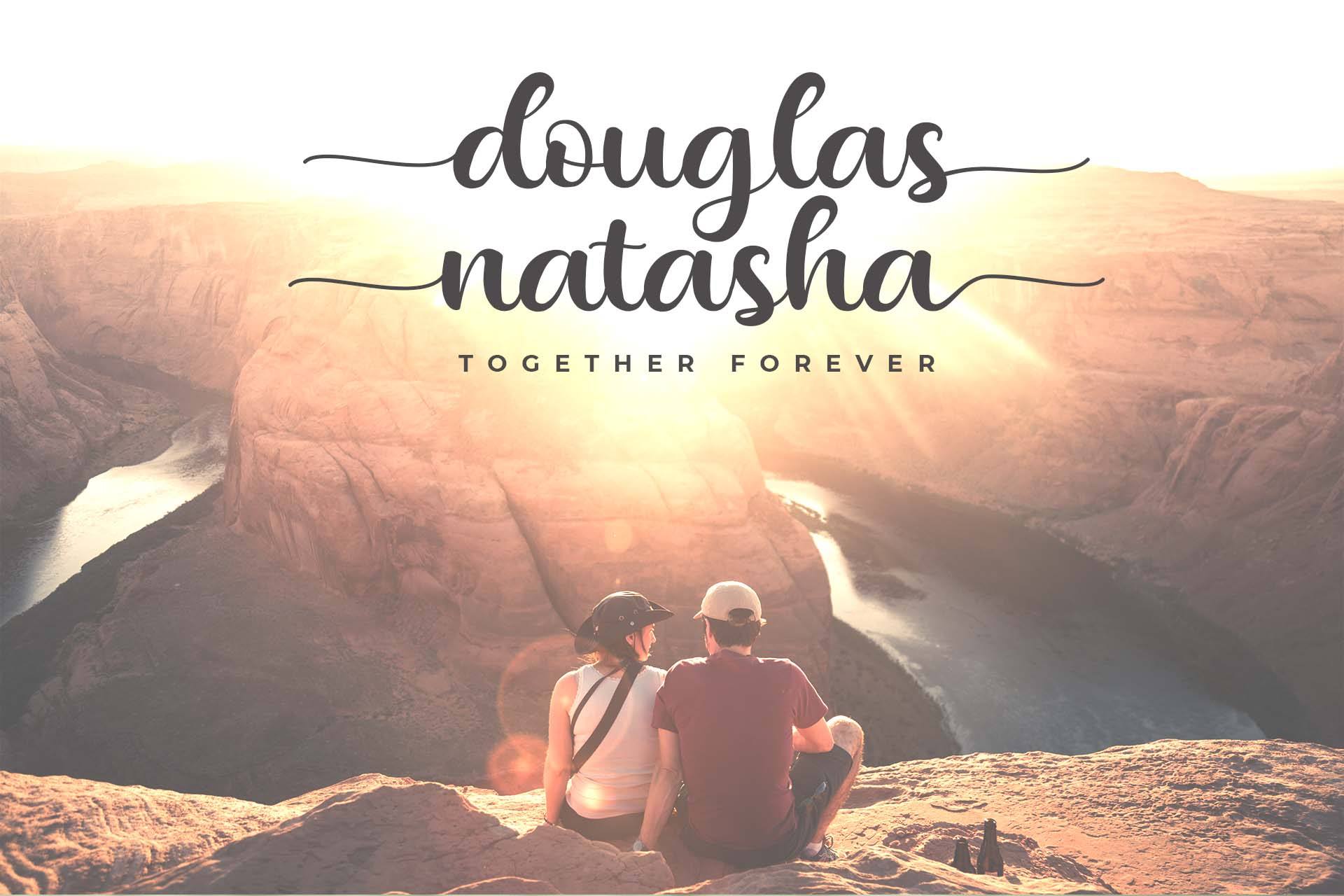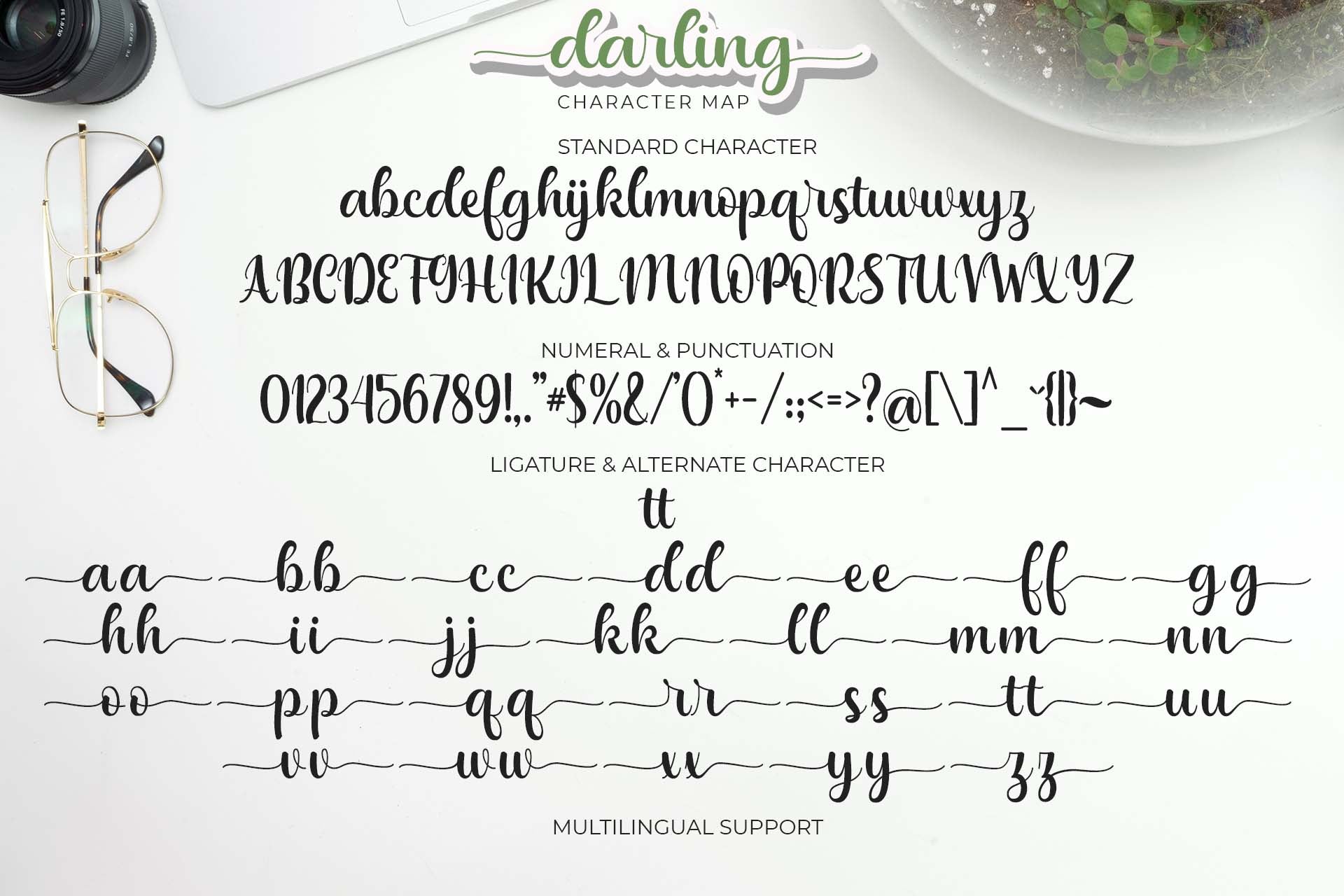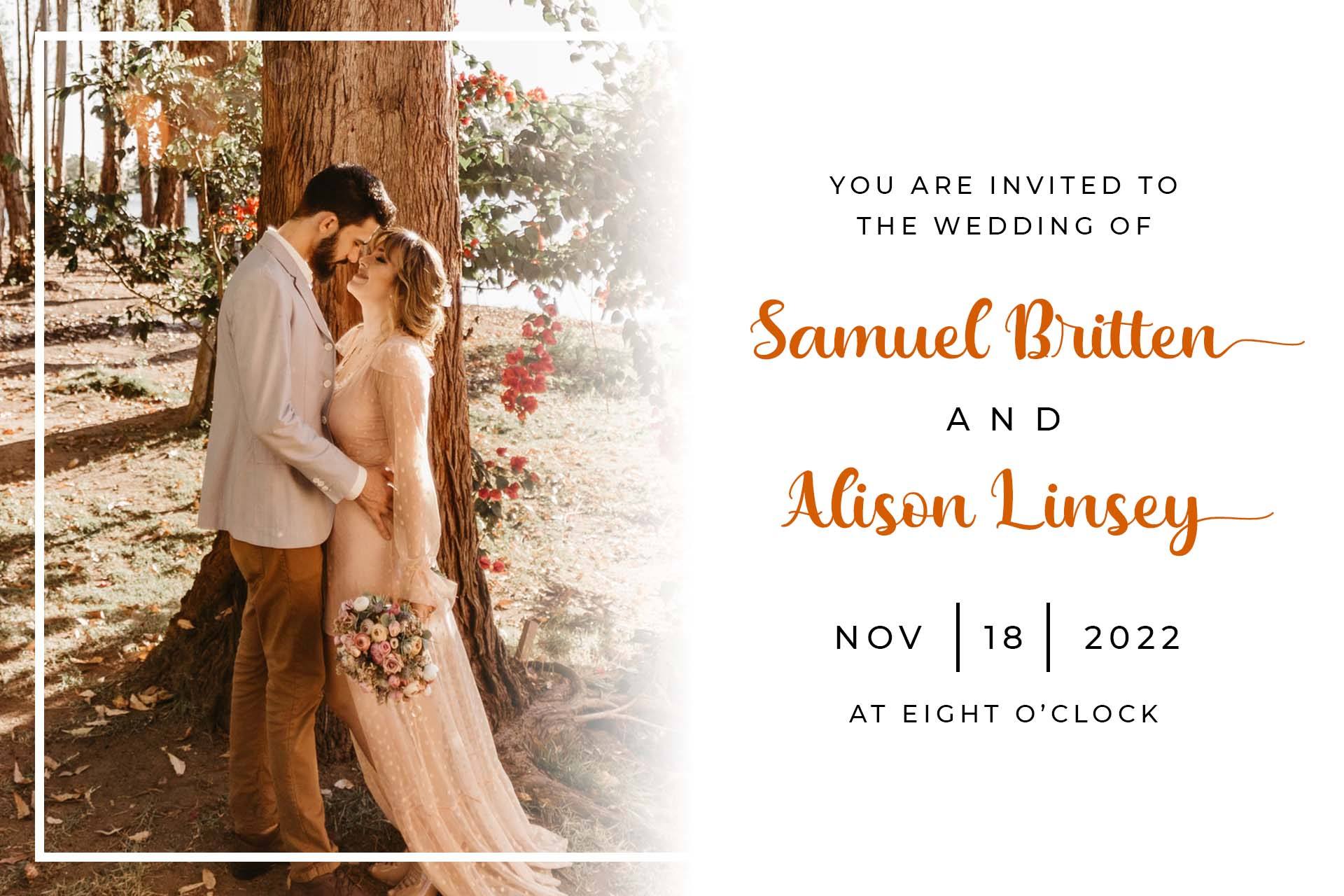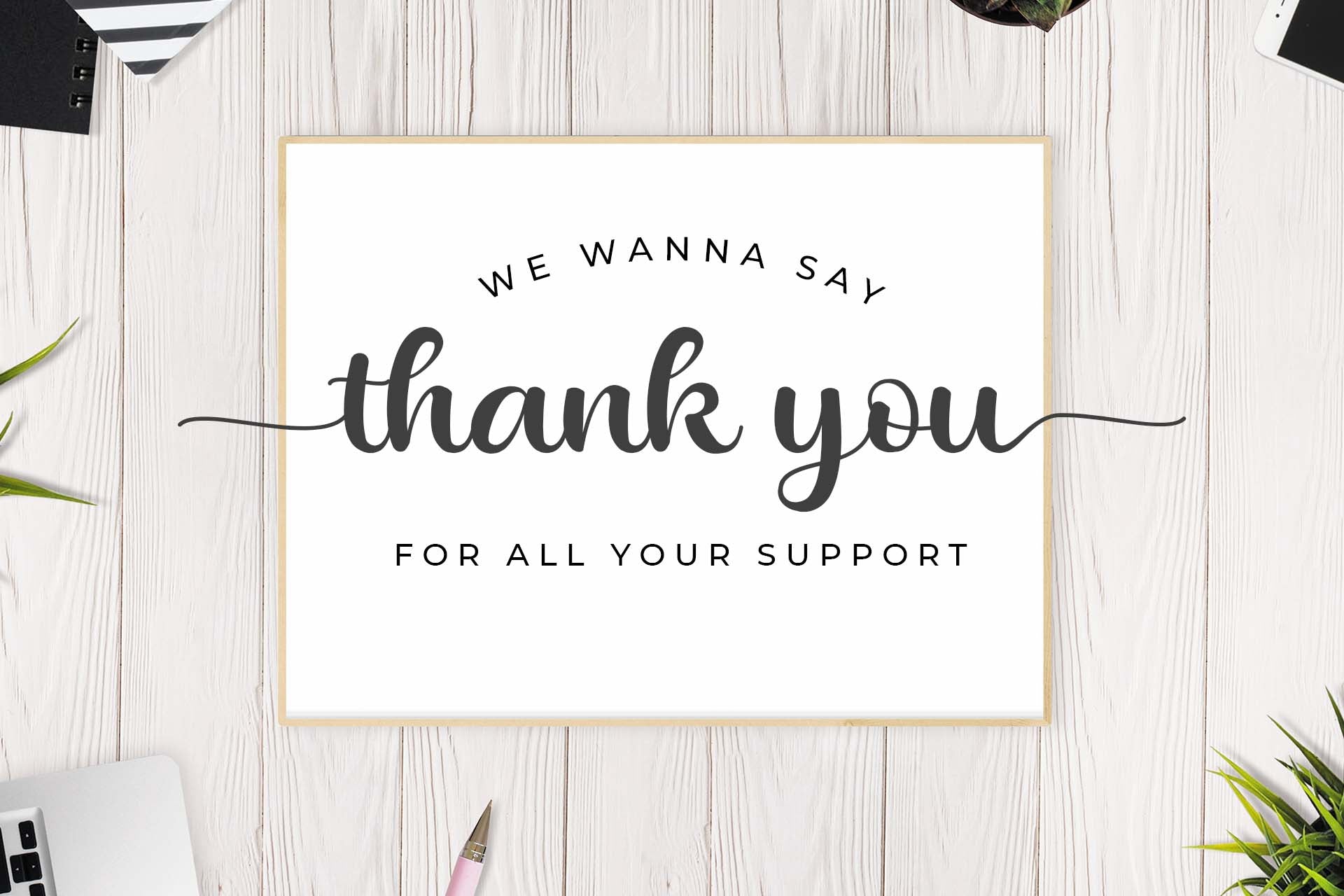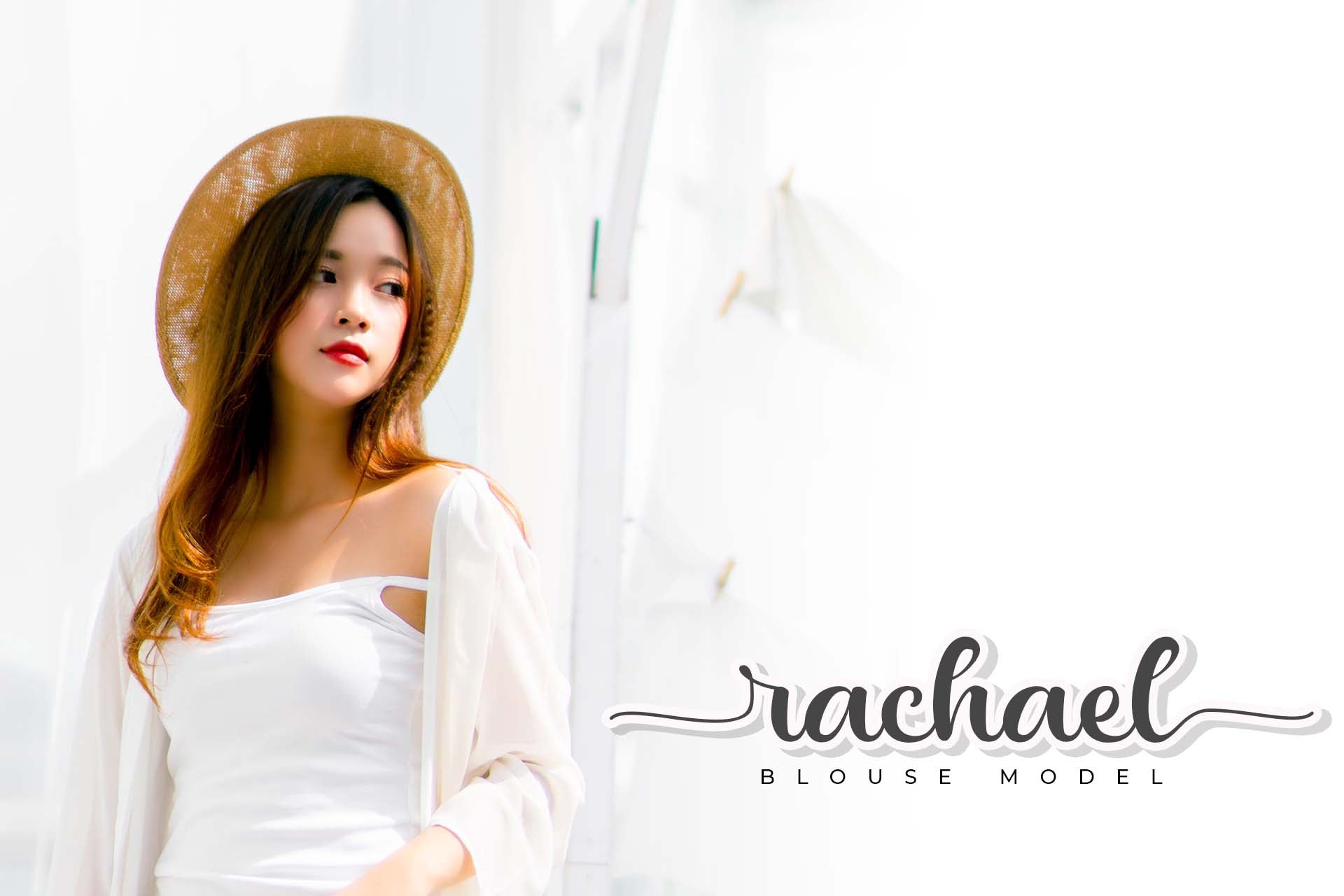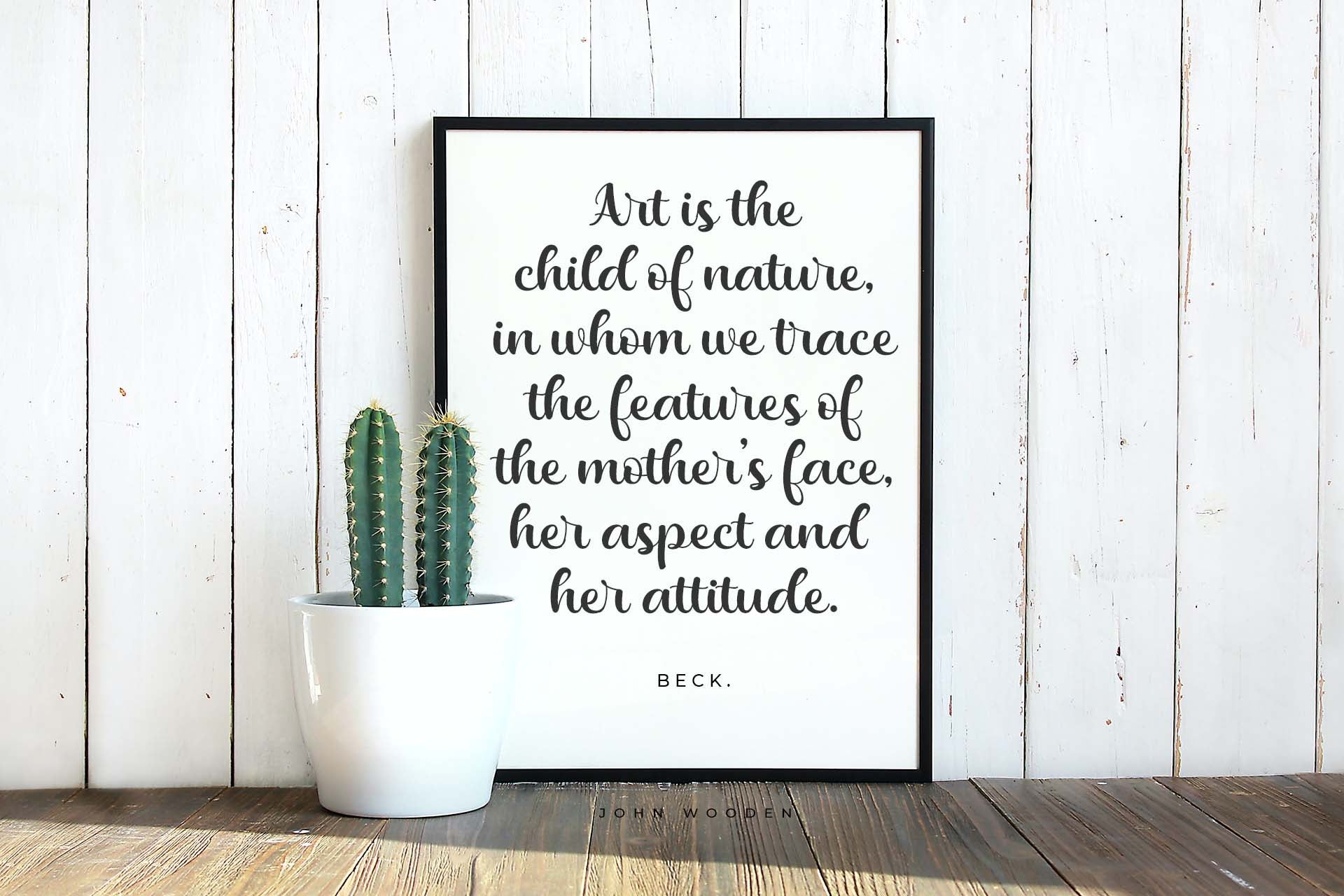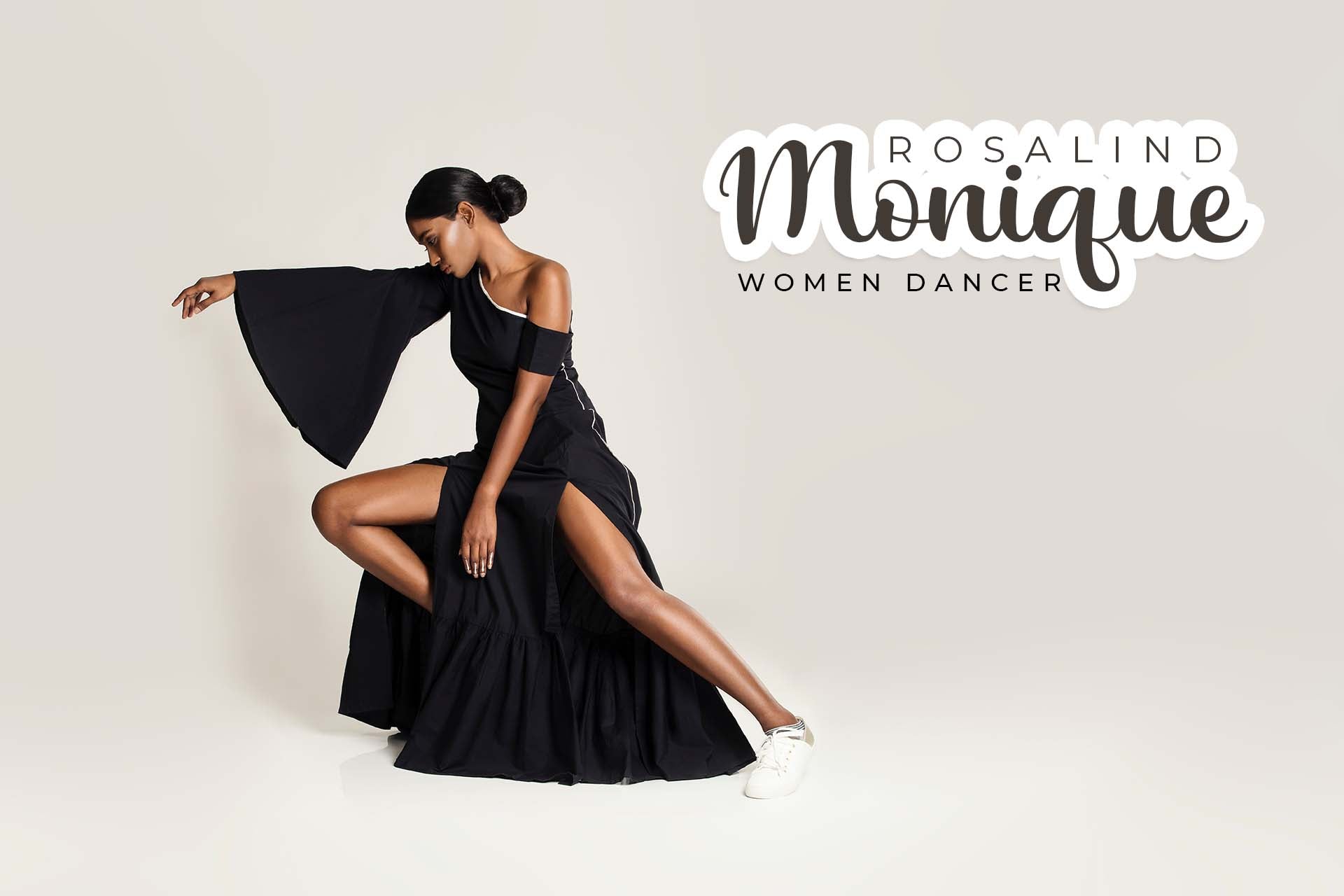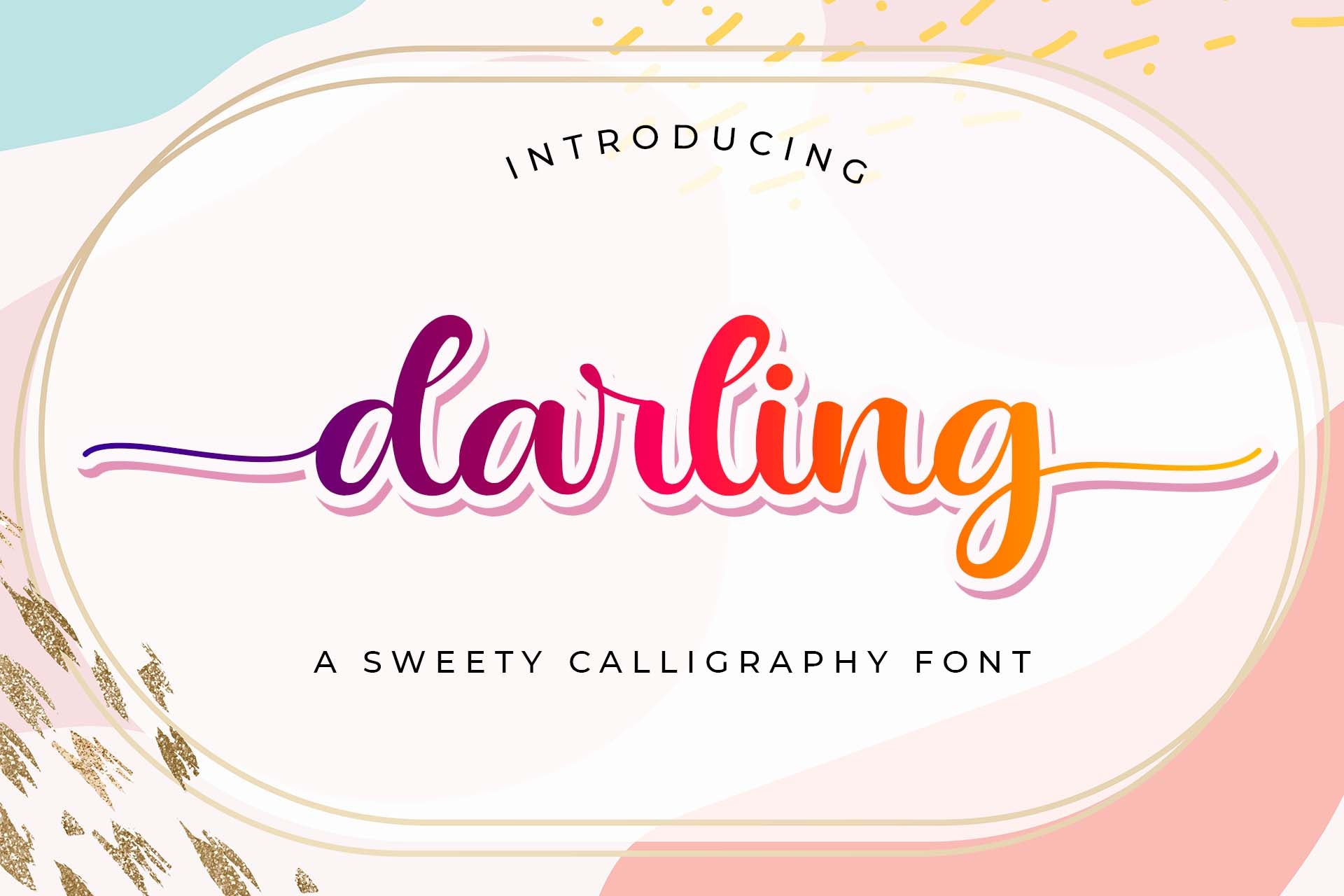
Darling is a gorgeous and elegant calligraphy font. Use it for any design projects that require a charming appearance! This font is PUA encoded which means you can access all of the glyphs and swashes with ease!